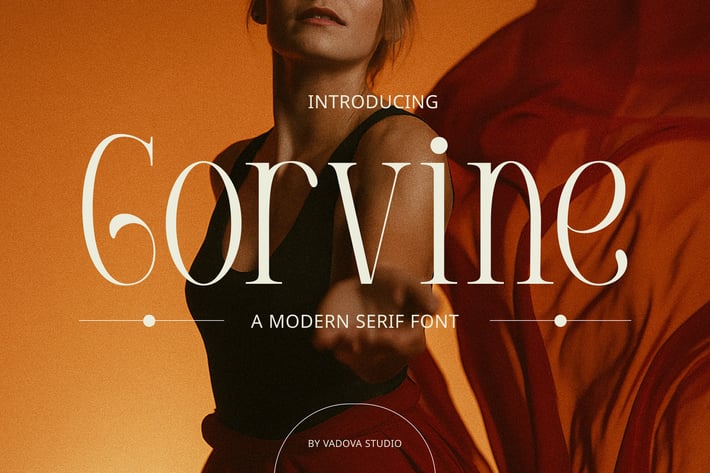
Gorvine Modern Serif Font
Gorvine Elegant Serif Font, a modern font perfect for adding elegance and style to your projects. Whether itβs for quotes, logotypes, magazine headers, or more, this versatile typeface ensures your text stands out beautifully.
Gorvine Elegant Serif Font Suitable for Luxury branding, fashion magazines, editorial design, wedding invitations, high-end product packaging, beauty advertisements, jewellery branding, perfume labels, elegant website headers, boutique branding, upscale restaurant menus, art gallery promotions, exclusive event branding, sophisticated book covers, premium cosmetics, high-fashion photography watermarks, fine art prints, literary journal titles, prestige automotive brochures, bespoke service branding.